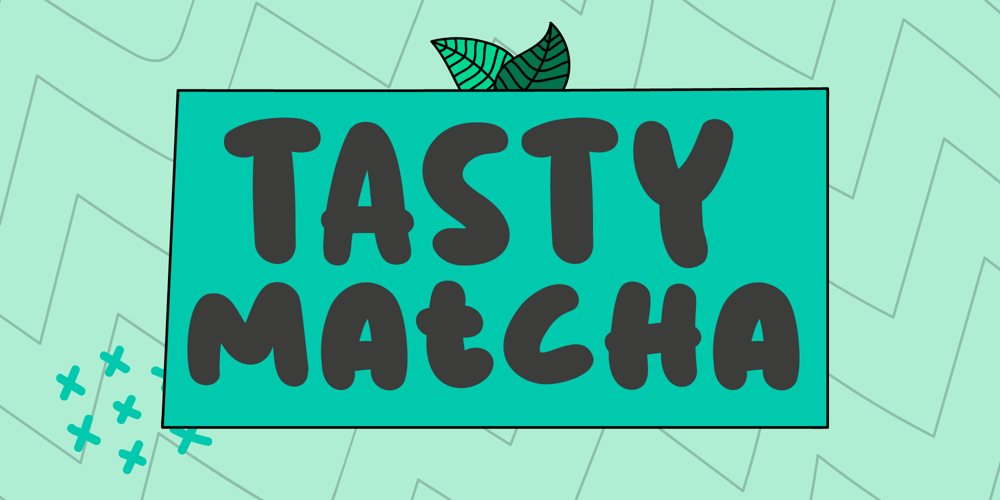
Tasty Matcha
Tasty Matcha font
Tasty Matcha Font Family was designed by Stefie Justprince and published by Crumphand. Tasty Matcha contains 1 styles and family package options. Here is it, Tasty Matcha Fonts.Based on my favorite drink become a fonts called Tasty Matcha.The fonts looks good, stunning, great, ease reading.What’s Included Inside The Fonts ? Uppercase Lowercase Symbols Numerals European Multilingual Thank You, Regards!